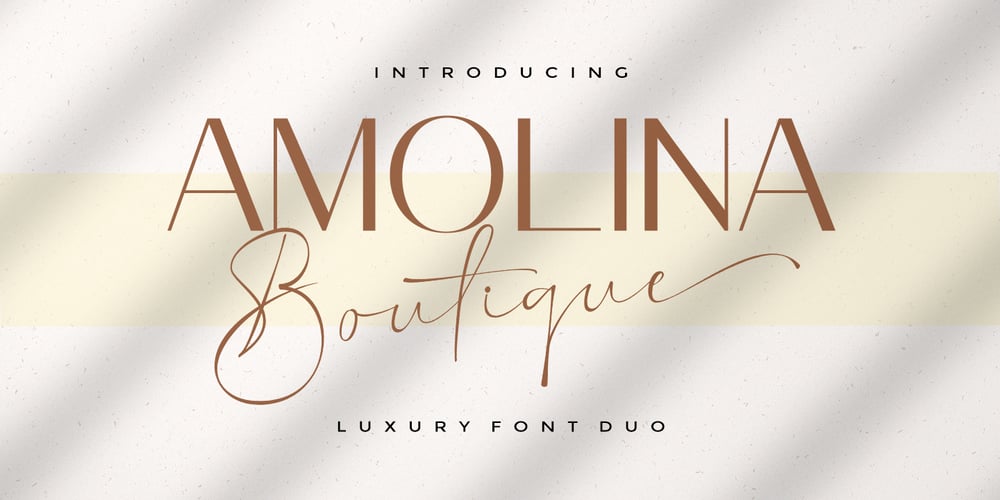
Amolina Boutique Script Font Family was designed by Rizki Andika and published by Letterfreshstudio. Amolina Boutique Script contains 2 styles and family package options. Amolina Boutique is a luxury font Duo. which comes with a combination of modern and elegant fonts, namely sans and signature style. You can combine it to make beautiful typography. This hand display style makes it perfect for use in all your design projects be it logos, labels, packaging designs, blog titles, posters, wedding designs, social media posts, Instagram designs, card invitations, art quotes, home decor, book / cover titles , etc.Already matched up and ready to be used together for your next design!Here’s what’s included :Amolina Boutique Script Regular / Sans • Thin and realistic signature fonts ligatures, lowercase letters, uppercase letters, all punctuation & numbers..Language Support • Amolina Boutique supports the following languages; English, French, Italian, Spanish, Portuguese, German, Swedish, Norwegian, Danish, Dutch, Finnish, Indonesian, Malay, Hungarian, Polish, Croatian, Turkish, Romanian, Czech, Latvian, Lithuanian, Slovak, Slovenian.I hope you enjoy this font. If you have questions, don’t hesitate to give me a message :)Thank you for your purchase!